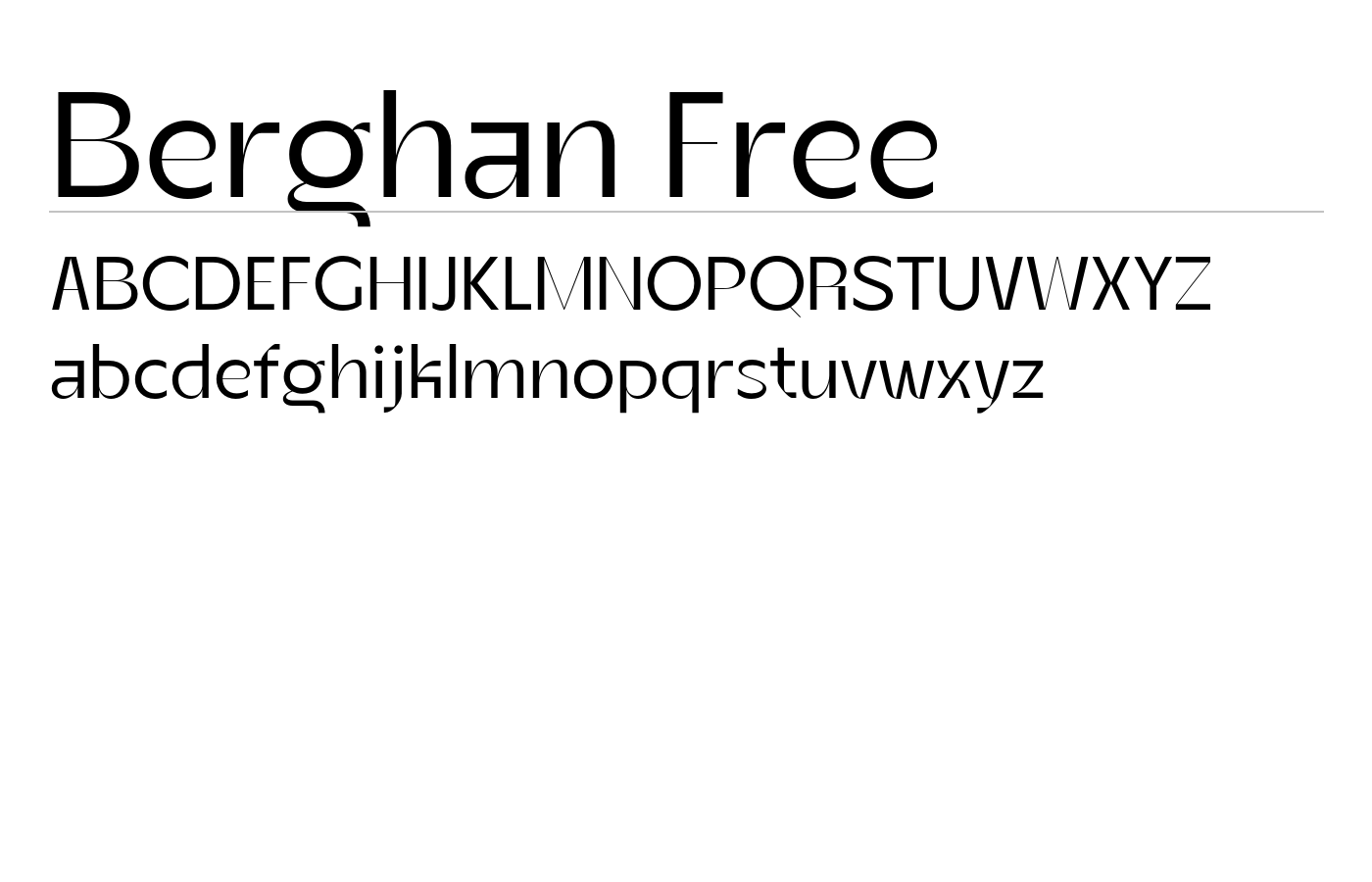
Berghan Free is a modern, elegant sans serif font characterized by its tall, slender letterforms and distinctive geometric details, such as the unique tail on the lowercase "g" and the angled cuts on letters like "h" and "r." With a light to regular weight, low contrast in stroke thickness, and a clean, airy spacing, it creates a refined and sophisticated look well suited for fashion branding, editorial headlines, and stylish digital interfaces seeking a contemporary yet unique personality. This font’s sleek design balances readability with artistic flair, making it perfect for projects that want to stand out with subtle creativity.
Berghan Free Font
About Berghan Free Font